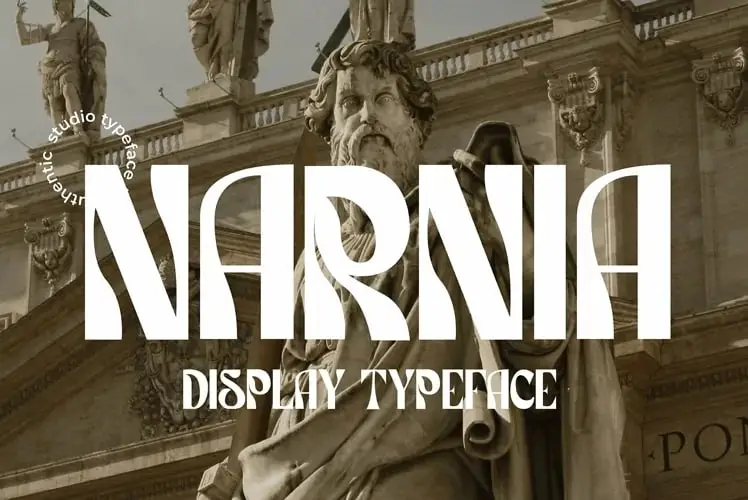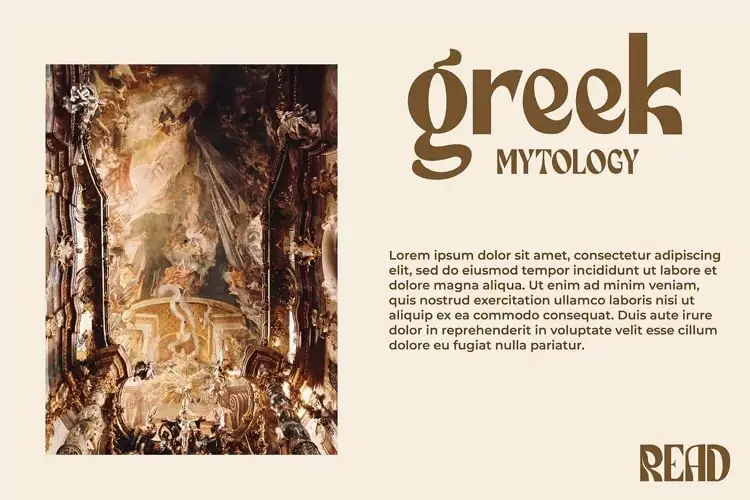
Narnia Font
The Narnia Font is a beautifully crafted typeface inspired by the enchanting world of fantasy. This font features a unique blend of whimsical and elegant styles, making it perfect for a variety of creative projects.
Ideal for branding, logos, web design, and print materials, the Narnia Font can add a touch of magic to your projects. Use it for invitations, book covers, and any creative endeavor that requires a hint of fantasy.